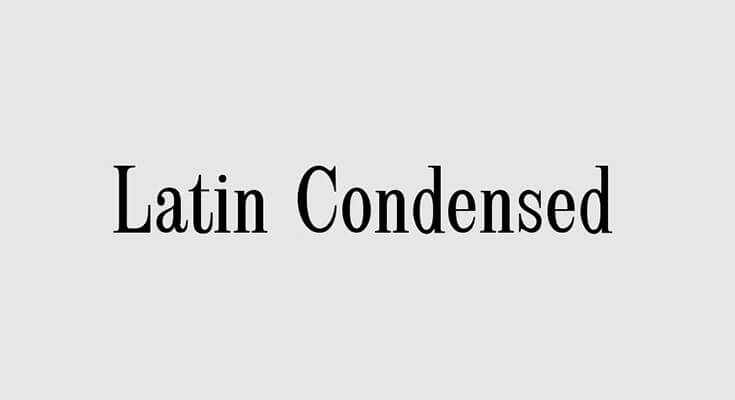
Latin Condensed Font is a stylish serif typeface. And you might really enjoy a font family like this one. So, try it out today.
Created and shared by Manfred Klein that is a Prolific German type designer, who was born in Berlin in 1932 and died near Frankfurt in 2018.
Because of its wide sharp corners. So, this really the best option for adding sharpness to the design. Thus, make some plans and surely try to put it all kinds of designs.
It also works well for brands such as watchmakers, jewelry headings, brochure layouts, card designs, invoices, articles, magazines, headers, flyers, social media posters, documentation purposes, etc.